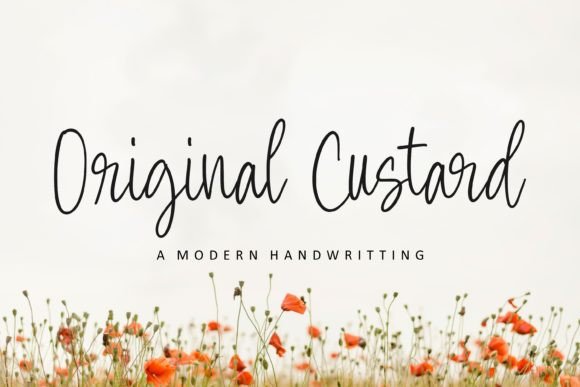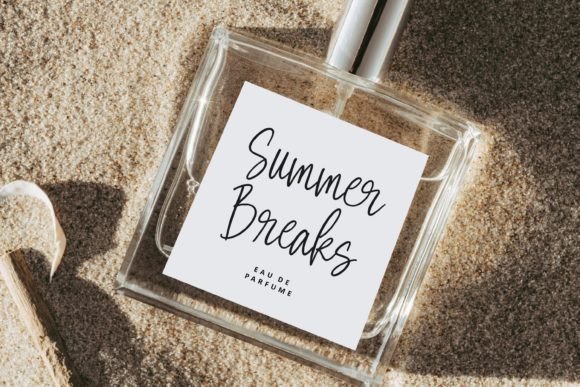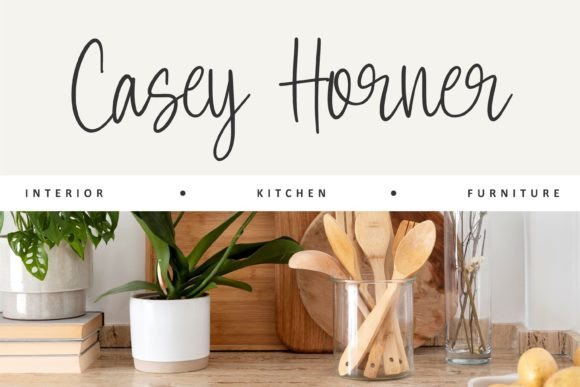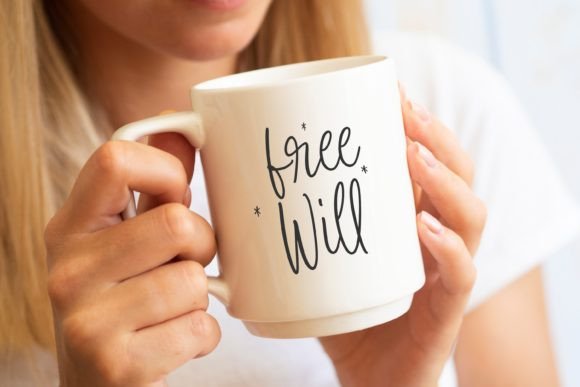
Original Custard Font
About the Original Custard Font
Presenting Original Custard Font, a unique and stylish typeface that will make your work stand out. Original Custard is a modern handwritting font that’s perfect for adding a touch to your design projects! Crafted with care and attention to detail, this font is incredibly versatile and can be used for a range of design projects, including logos, branding, invitations, and more.
Original Custard’s hand-drawn quality makes it ideal for projects requiring a friendly, approachable feel. It excels in headlines, short text blocks on branding materials, and invitations, adding a touch of personality without overwhelming the design. However, its informal nature makes it unsuitable for body text or UI elements where readability is paramount.
For a balanced aesthetic, pair Original Custard with a clean sans-serif like Open Sans for body copy, creating a contrast that highlights the font’s unique character. Alternatively, a classic serif such as Garamond could provide a sophisticated counterpoint, lending an air of timeless elegance.
The font’s overall personality is warm and inviting, making it a great choice for brands focused on food, crafts, or children’s products. Avoid using it for projects requiring a highly professional or corporate image.
Original Custard Font Example